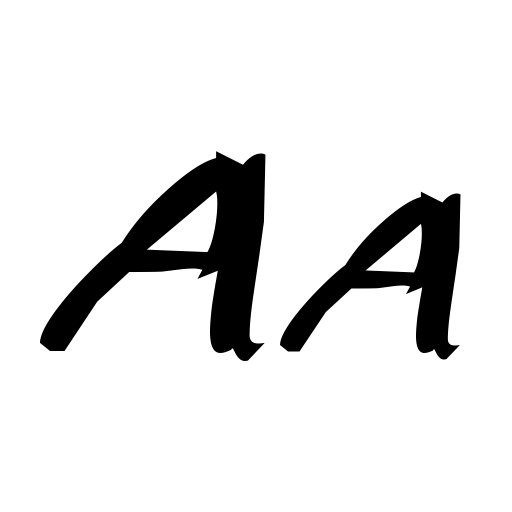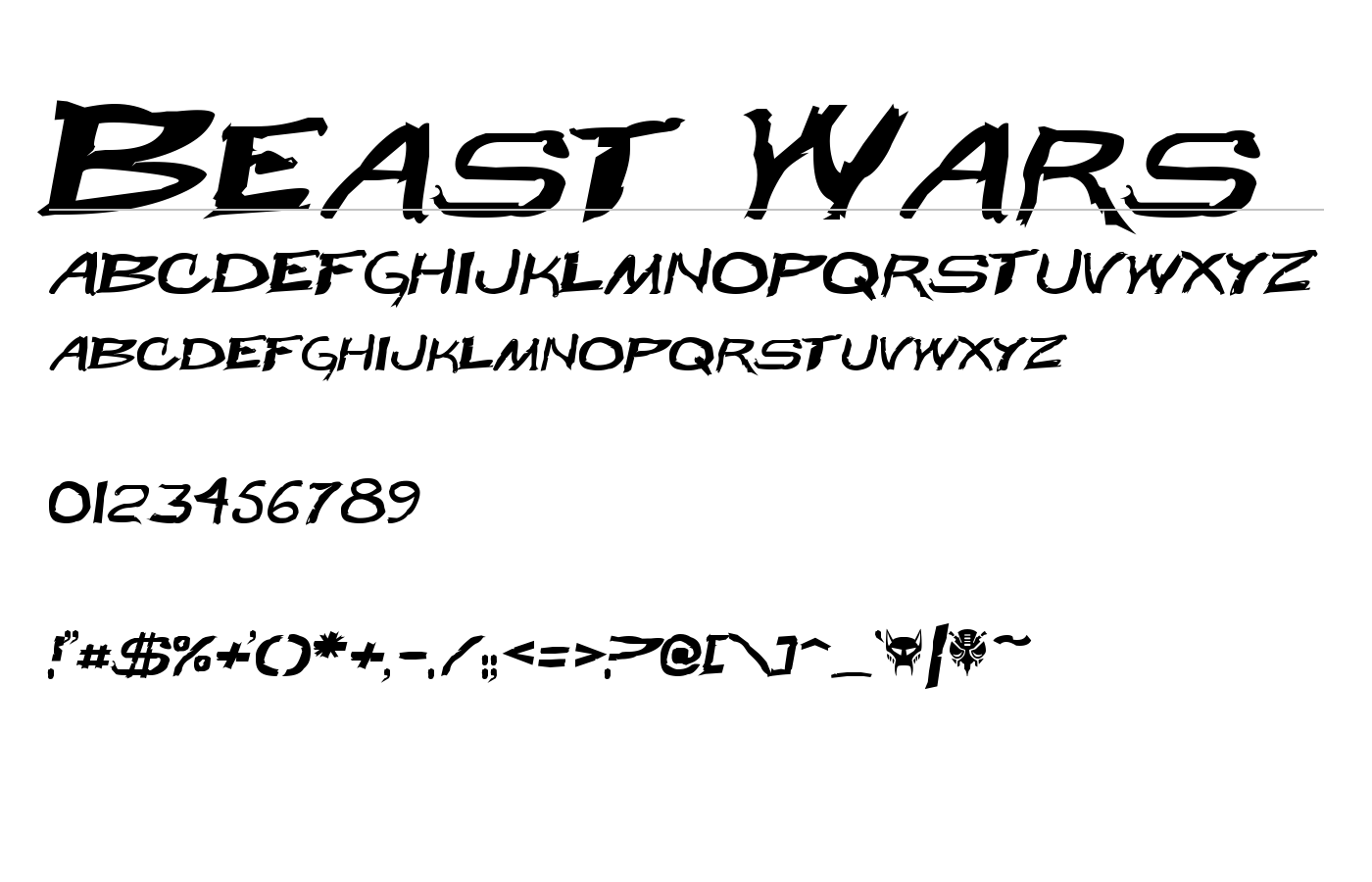
Beast Wars Font is a bold, energetic display typeface with a rough, brushstroke style that conveys a wild, dynamic feel. Its jagged edges and irregular letterforms make it perfect for adventurous, action-themed designs like posters, video game titles, or branding that needs a fierce, edgy personality. This font works best in headlines and logos where impact and attitude are key.
Beast Wars Font
About Beast Wars Font
| Font family | Beast Wars Font |
| Designer | Neale Davidson |